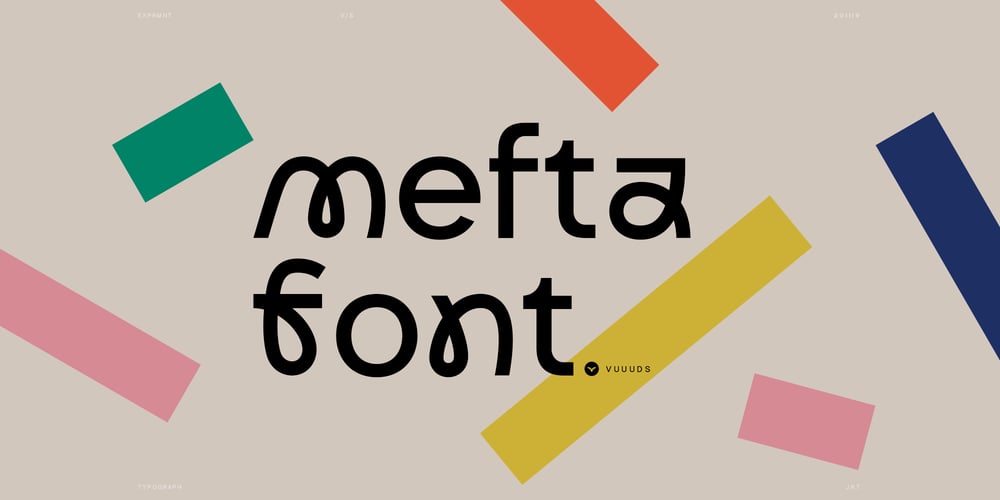
Mefta Font Family was designed by Agung Syaifudin and published by vuuuds. Mefta contains 1 styles and family package options. Introducing Mefta Font!Mefa is modern experimental display font, every single letters have been uniquely crafted.This font including beautiful alternate glyph. You can access the alternate glyph via Font Book (Mac user) or Windows Character Map (Windows user), I’ve been put the link tutorial inside the zip file.Foreign languages support: ÀÁÂÃÄÅÆÇÈÉÊËÌÍÎÏÐÑÒÓÔÕÖØÙÚÛÜÝàáâãäåæçèéêëìíîïðñòóôõöøùúûüýÿThanks for looking.—vuuuds.studio